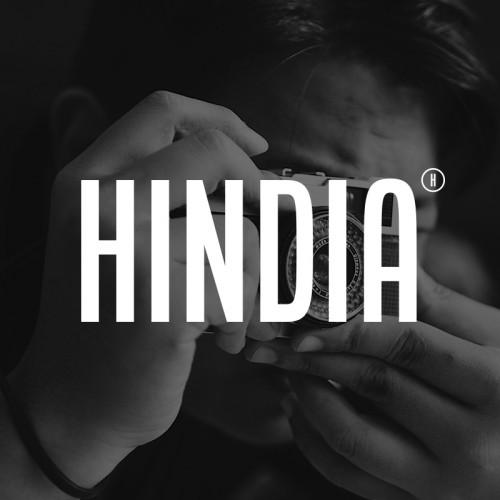
Mangano Font Description
Mangano is a beautiful display typeface with multiple styles. With this typeface you can give your design a clean or rough feeling. It can be used for various purposes such as headings, logos, invitations, t-shirt designs, greeting cards, posters, labels, book covers, brochures and much more!